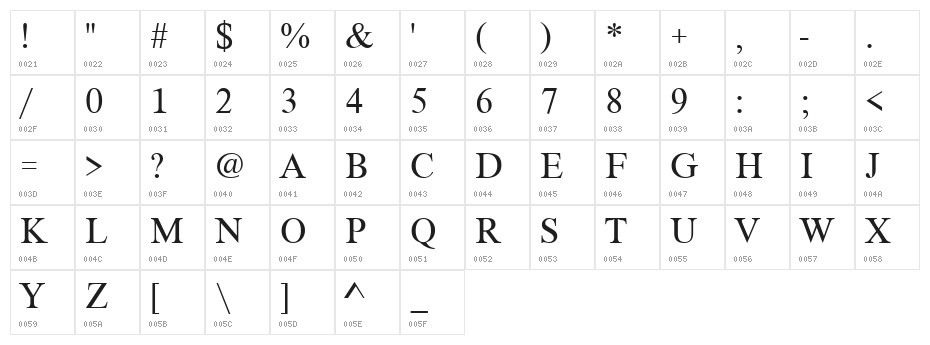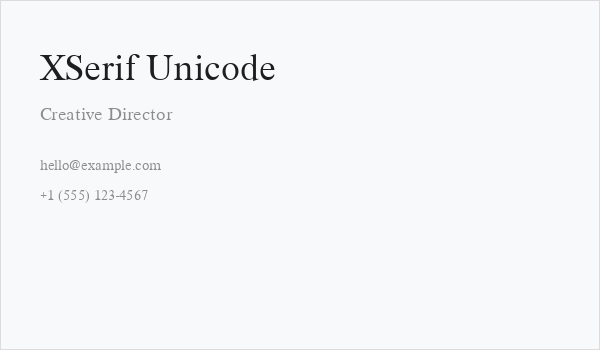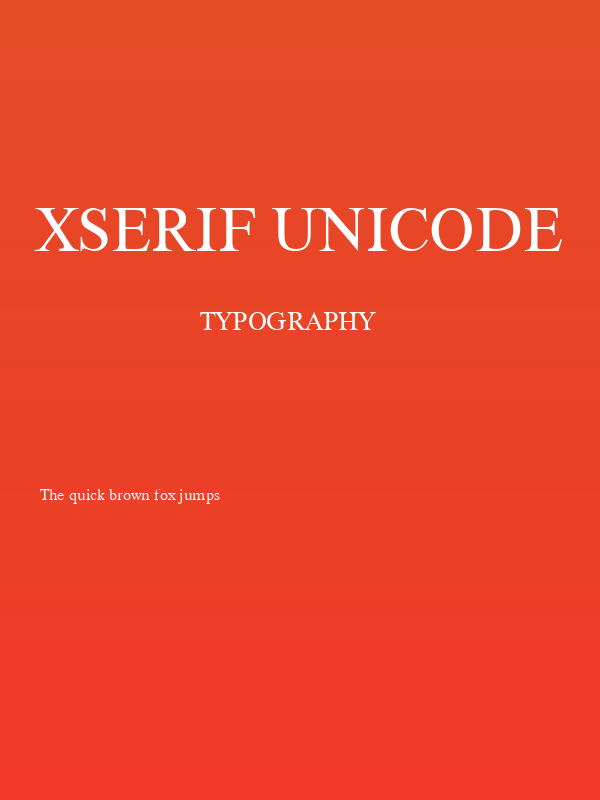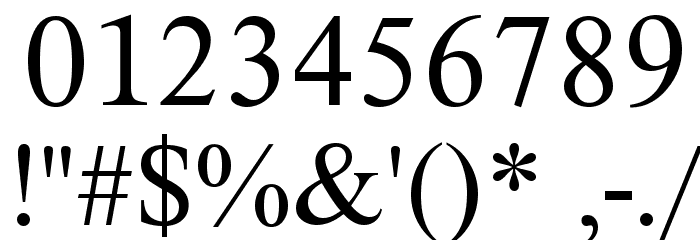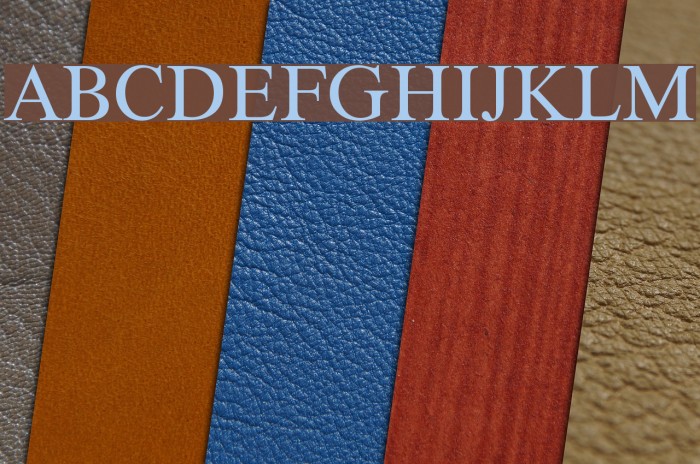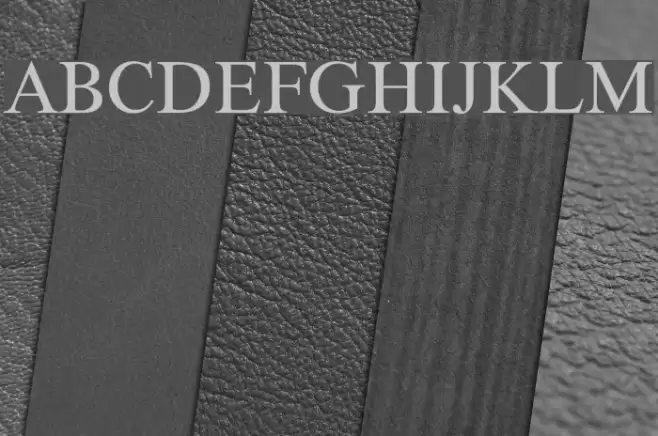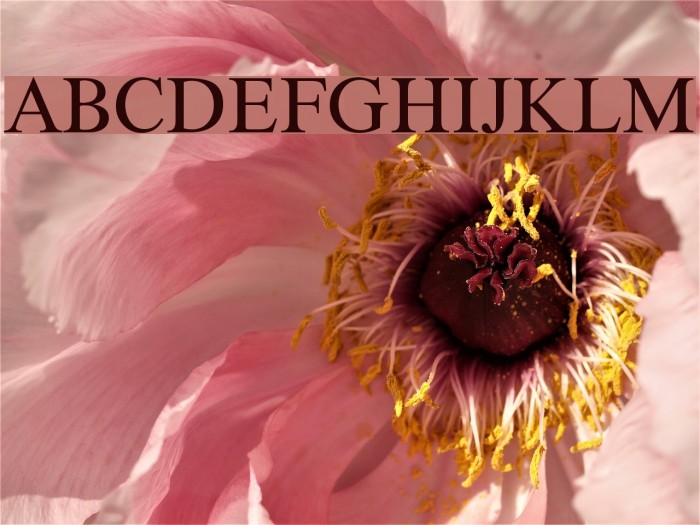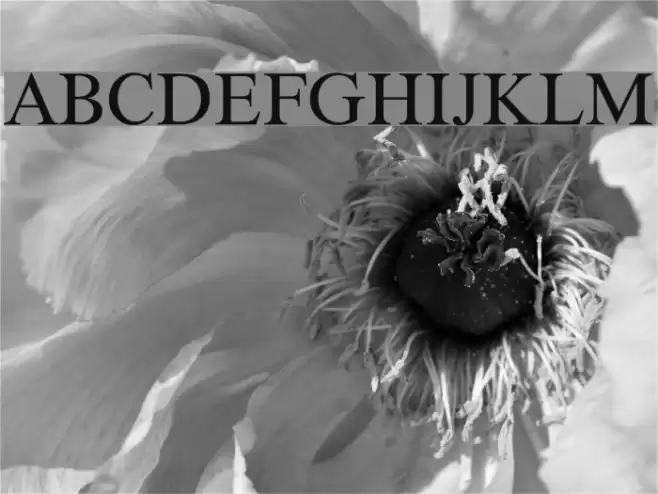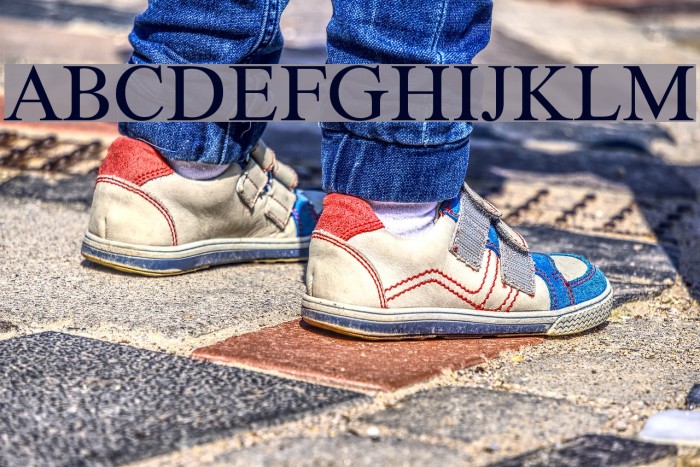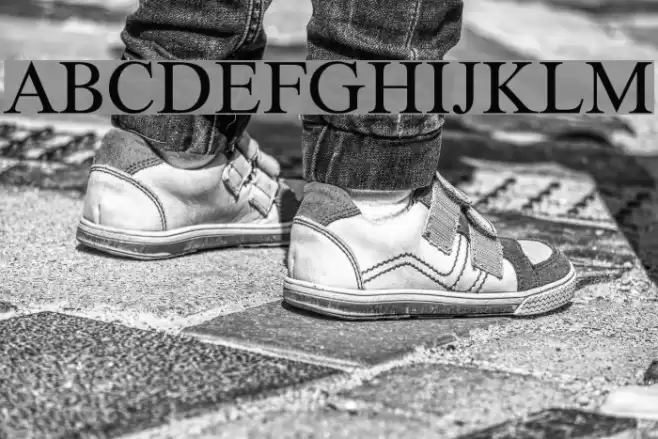
XSerif Unicode Font
XSerif Unicode Description
This font features a classic serif style with elegant, sharp serifs that provide a traditional and sophisticated appearance. The uppercase letters are well-proportioned, with a slight contrast between thick and thin strokes, adding to its refined look. The lowercase letters maintain a consistent style, with smooth curves and a balanced structure. Numbers are clear and legible, making them suitable for various applications. The special characters are distinct and harmonize well with the overall design, ensuring versatility in usage.
| Overall Style | Classic |
| Use Case | Headlines, Body text, Logos |
| Proposed Projects | Ideal for editorial design, book covers, formal invitations, and branding projects that require a touch of elegance and tradition. |